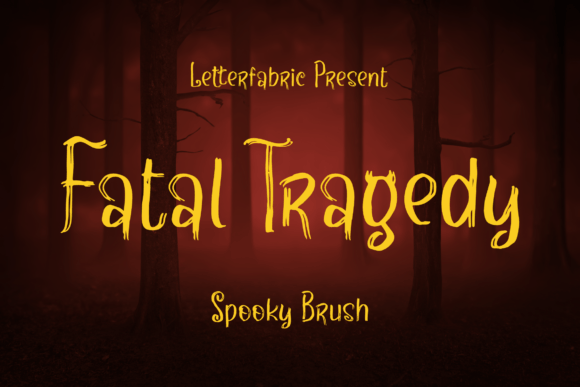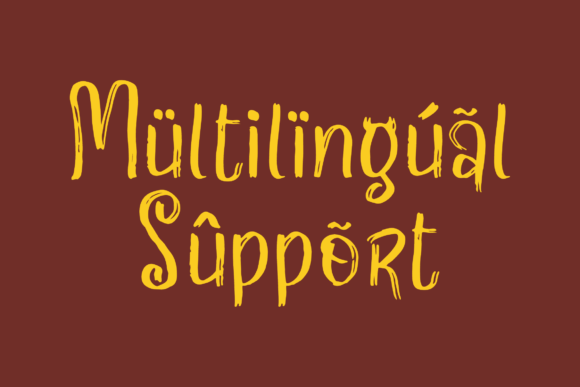
About Fatal Tragedy Font
Fatal Tragedy – Spooky Brush Font, suitable for any projects such as logos, branding projects, homeware designs, product packaging, mugs, quotes, posters, shopping bags, t-shirts, book covers, name cards, invitation cards, greeting cards, labels, photography, watermark, special events, and all your other lovely projects that need a spooky script taste.